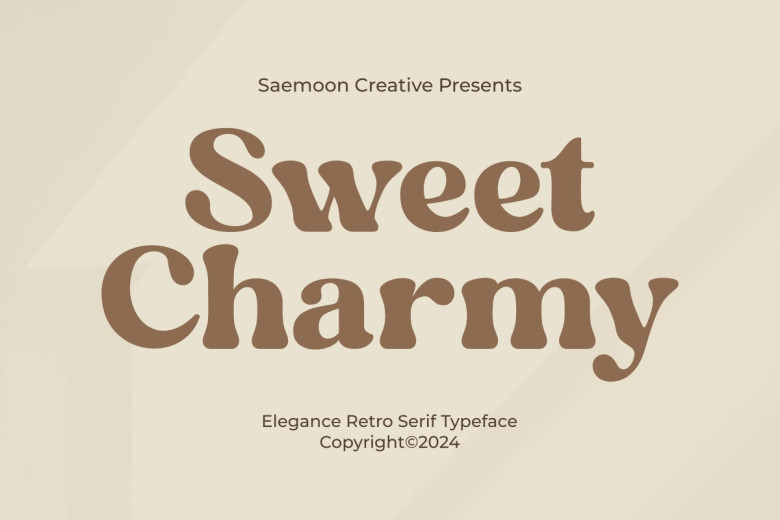
Sweet Charmy Font
Sweet Charmy Font – With a touch of subtlety and sophistication that integrates the genres of both old age elegance as well as modernity, Sweet Charmy is a profoundly elegant Retro Serif font. Indeed the details, its lines are integrated seamlessly, creating an enticing retro vibe that is both sharp and comfortable at the same time. Ideal for a versatile range of designs including logos, branding, invitations and creative design concepts, Sweet Charmy takes into consideration both the trends from pre-80s era and todays aesthetic.
In this story, each character in Sweet Charmy has been developed correctly with an equal balance of growth, making it a proportional masterpiece. The degree of openness of the font, firm yet mild lines and the presence of distinct decorative design features guarantee the irresistible, nostalgic charm of the font. Sweet Charmy helps your designs shine gently with old fashion preciousness refined and recreated to the finest contemporary detail.
Sweet Charmy does not just rule over your letters, but endow every word with history and profoundness, making your project speaking out a powerful and meaningful story. This is exactly the font that perfectly reflects the traditional sophistication and at the same time, accuracy of a contemporary typeface, which can be a valuable asset in any designer’s set of tools. Welcome Sweet Charmy into your creations today, bringing a sprinkle of charm and personality right where you need it.
Sweet Charmy Retro Serif Font